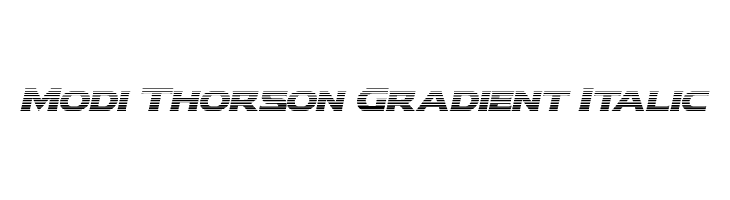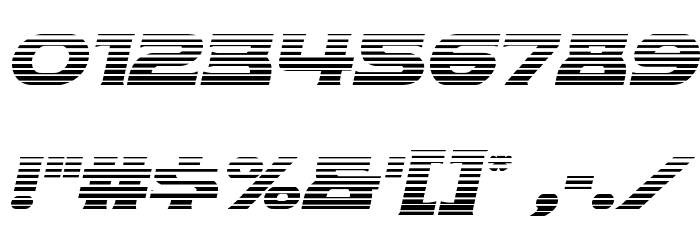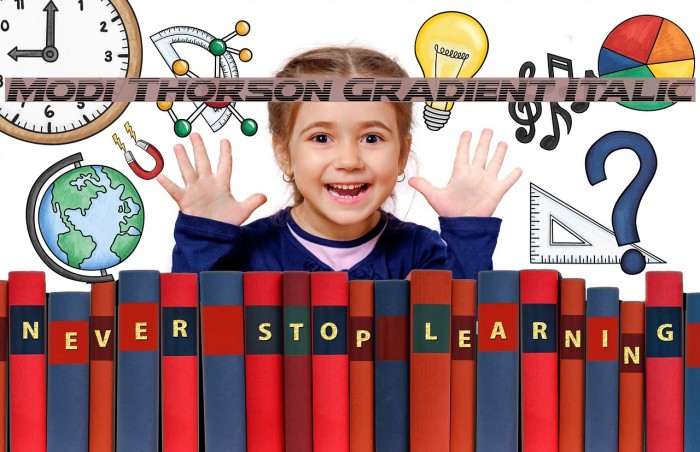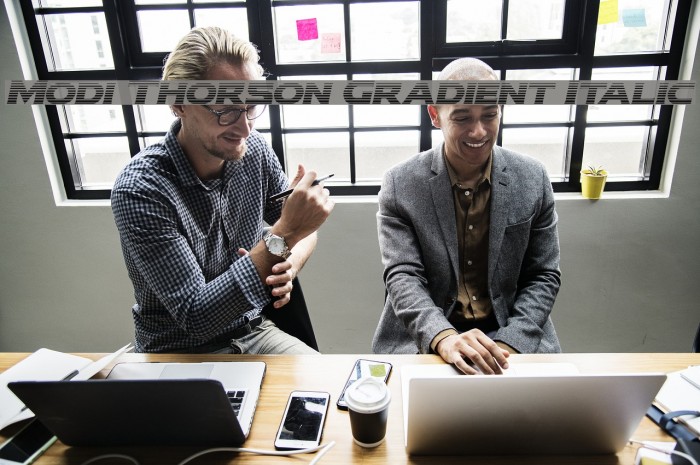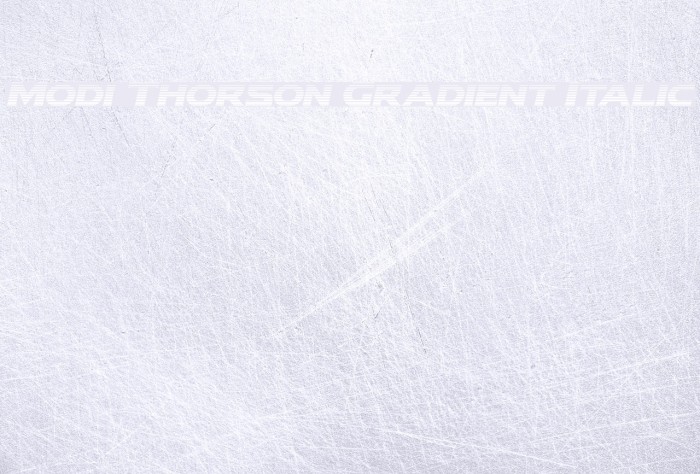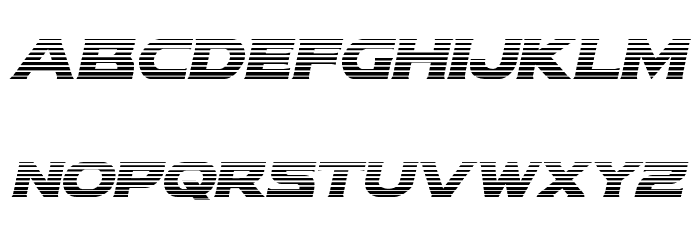
Modi Thorson Gradient Italic Font
Modi Thorson Gradient Italic Description
This font features a bold, italicized style with a distinctive gradient effect created by horizontal lines across each character. The uppercase and lowercase letters, along with numbers and special characters, maintain a consistent slant that adds a dynamic and modern touch. The design is visually striking, making it suitable for attention-grabbing headlines or creative projects. The characters are evenly spaced, ensuring readability despite the unique line pattern that defines the font's aesthetic.
Bold, italic font with a gradient effect from horizontal lines from Uncategorized fonts.
- Proposed Projects: Ideal for modern branding, sports team logos, dynamic posters, and tech-related designs.